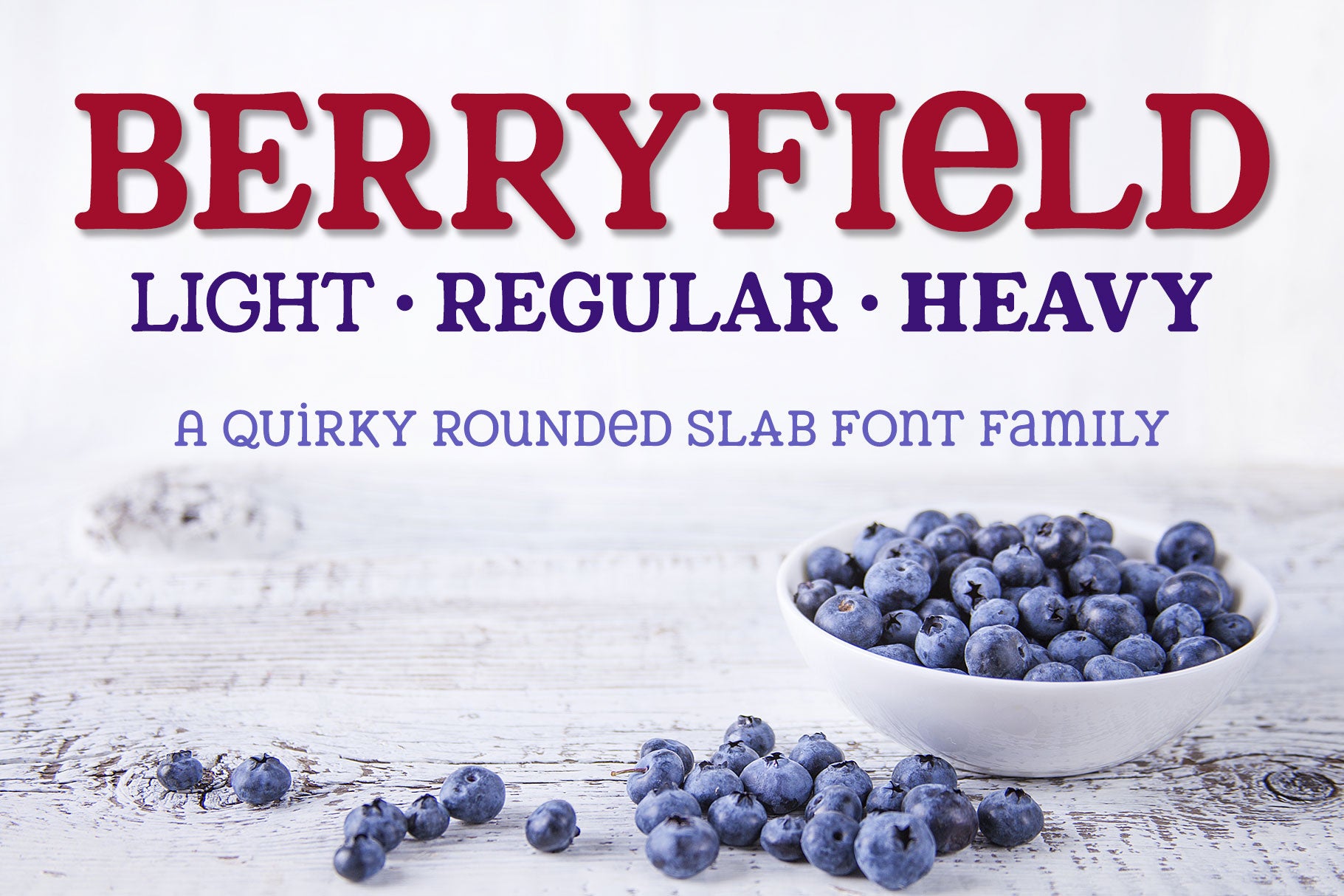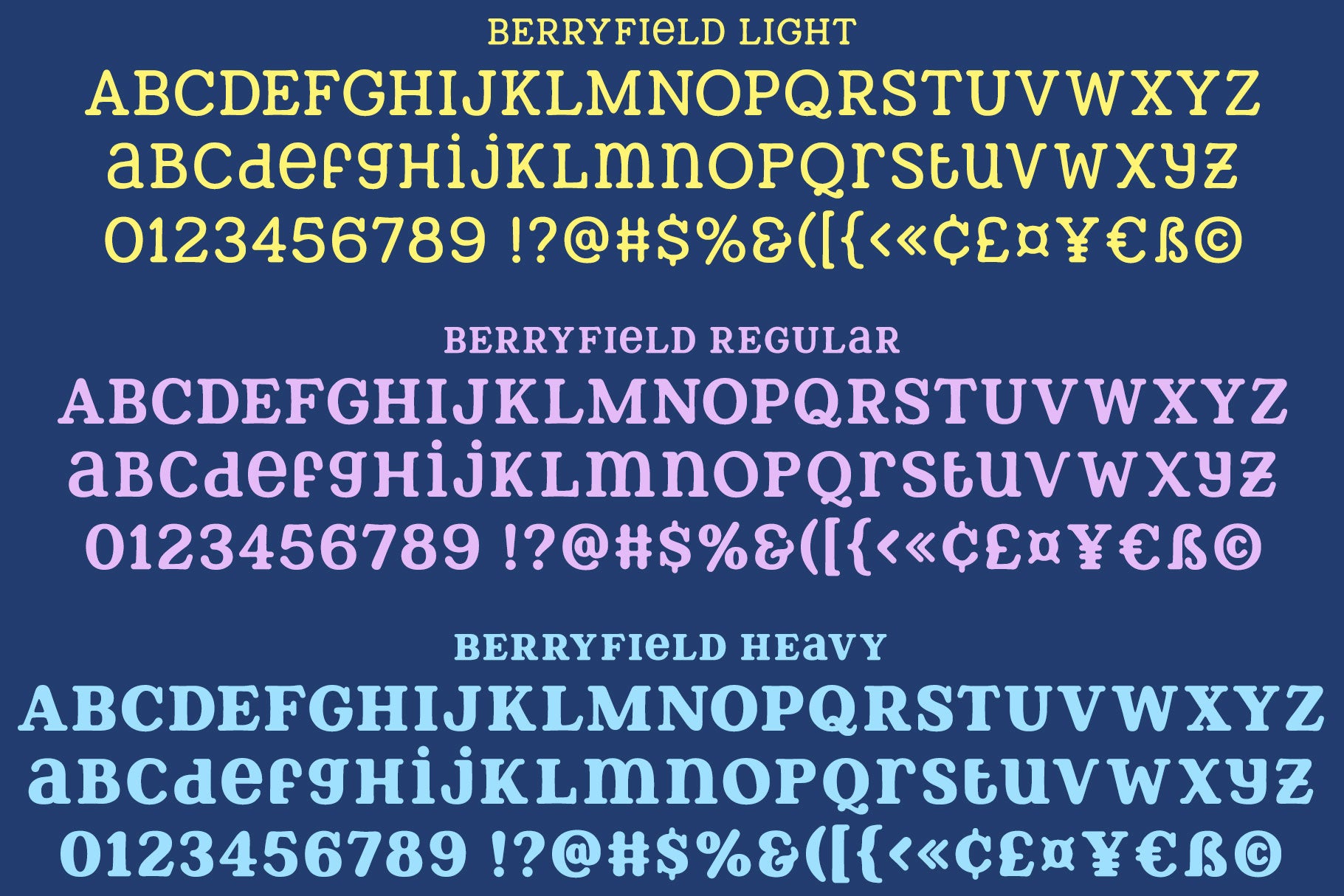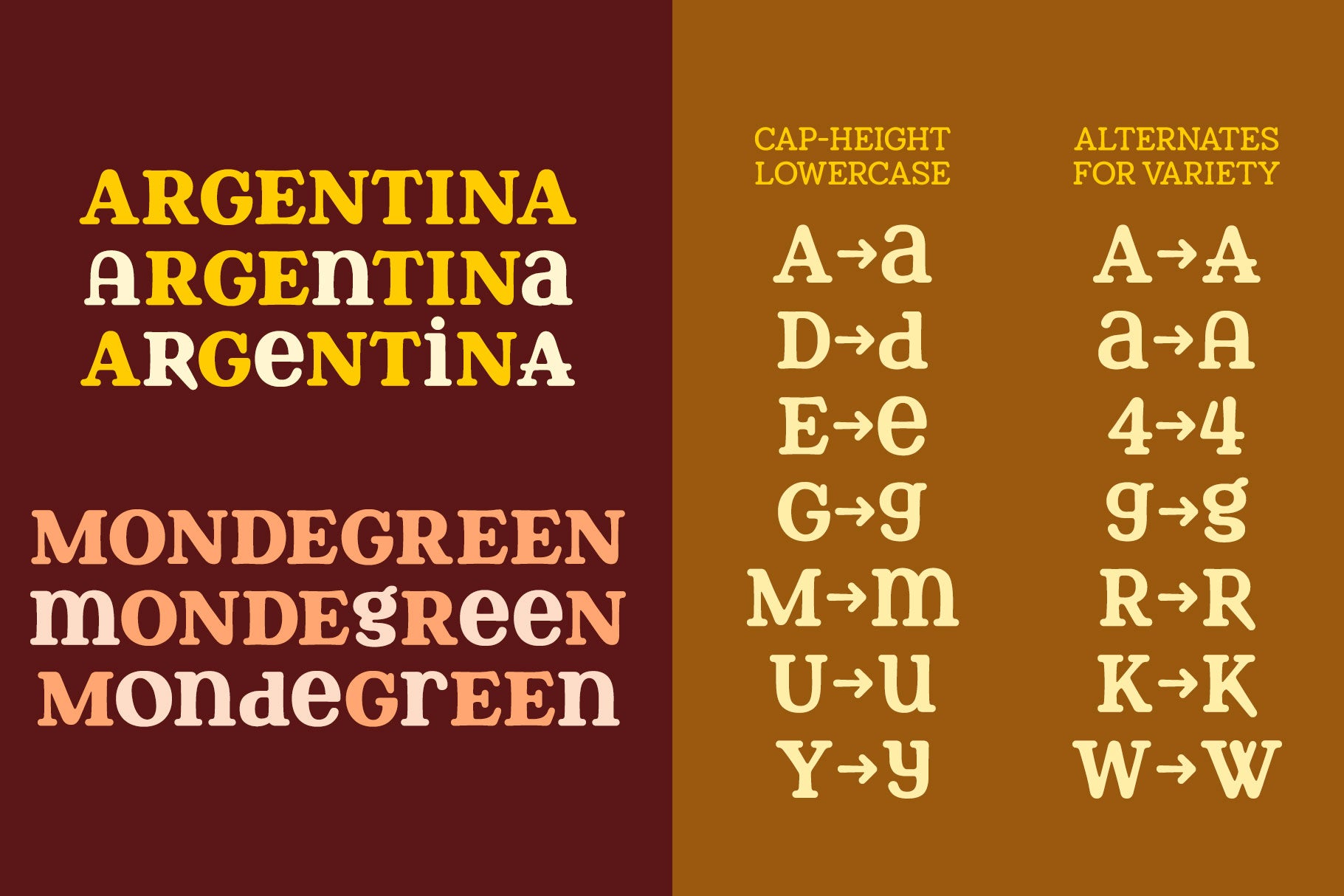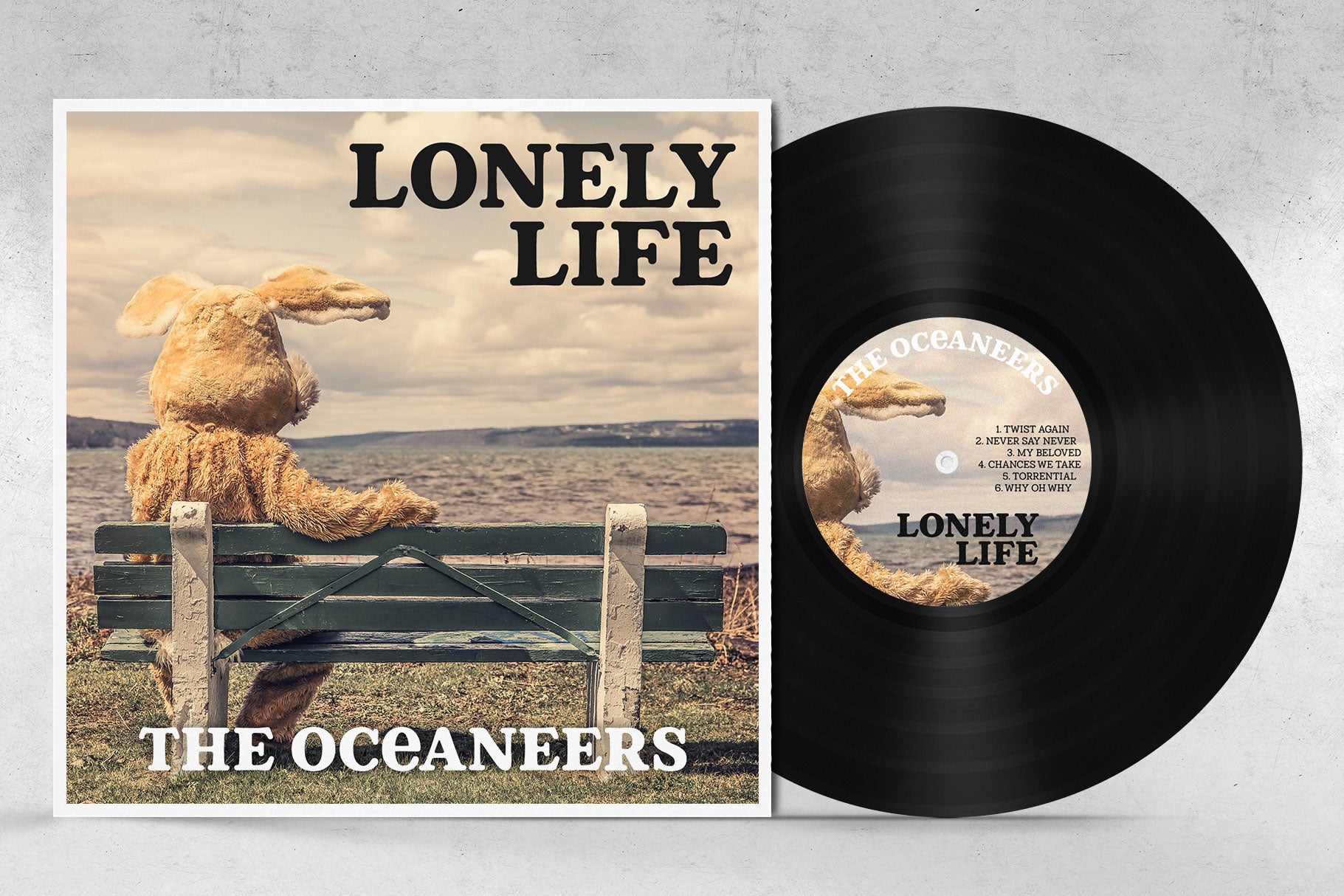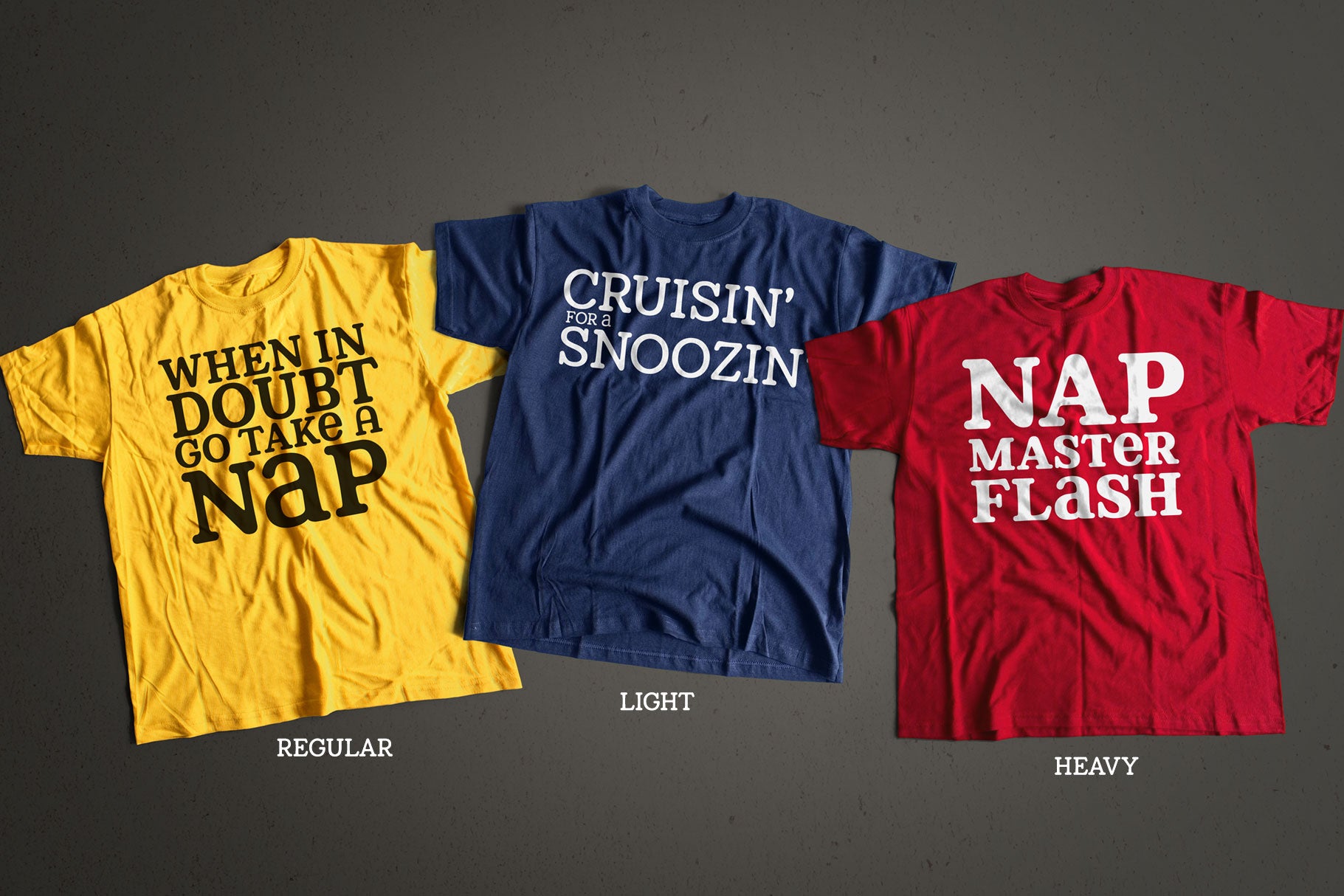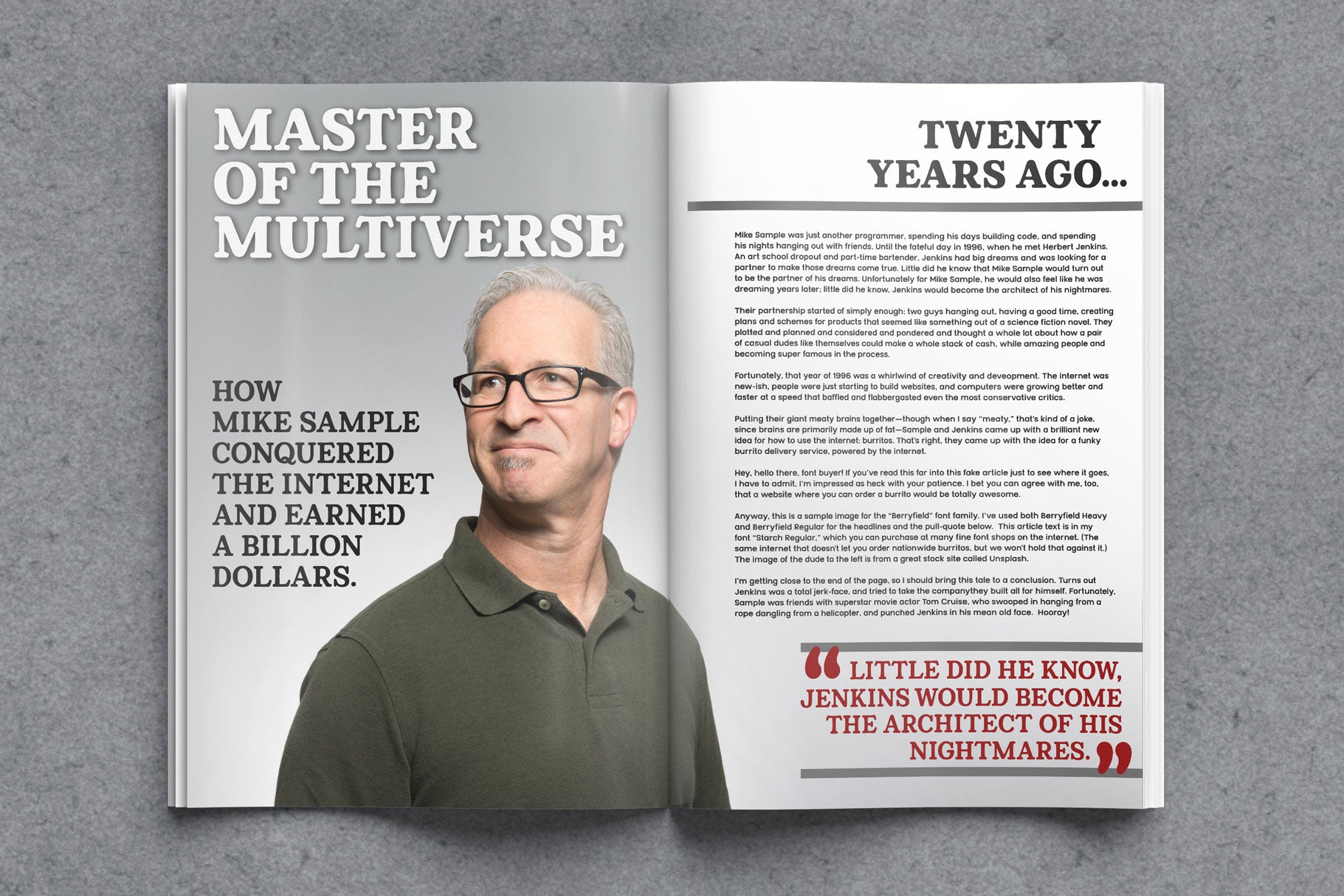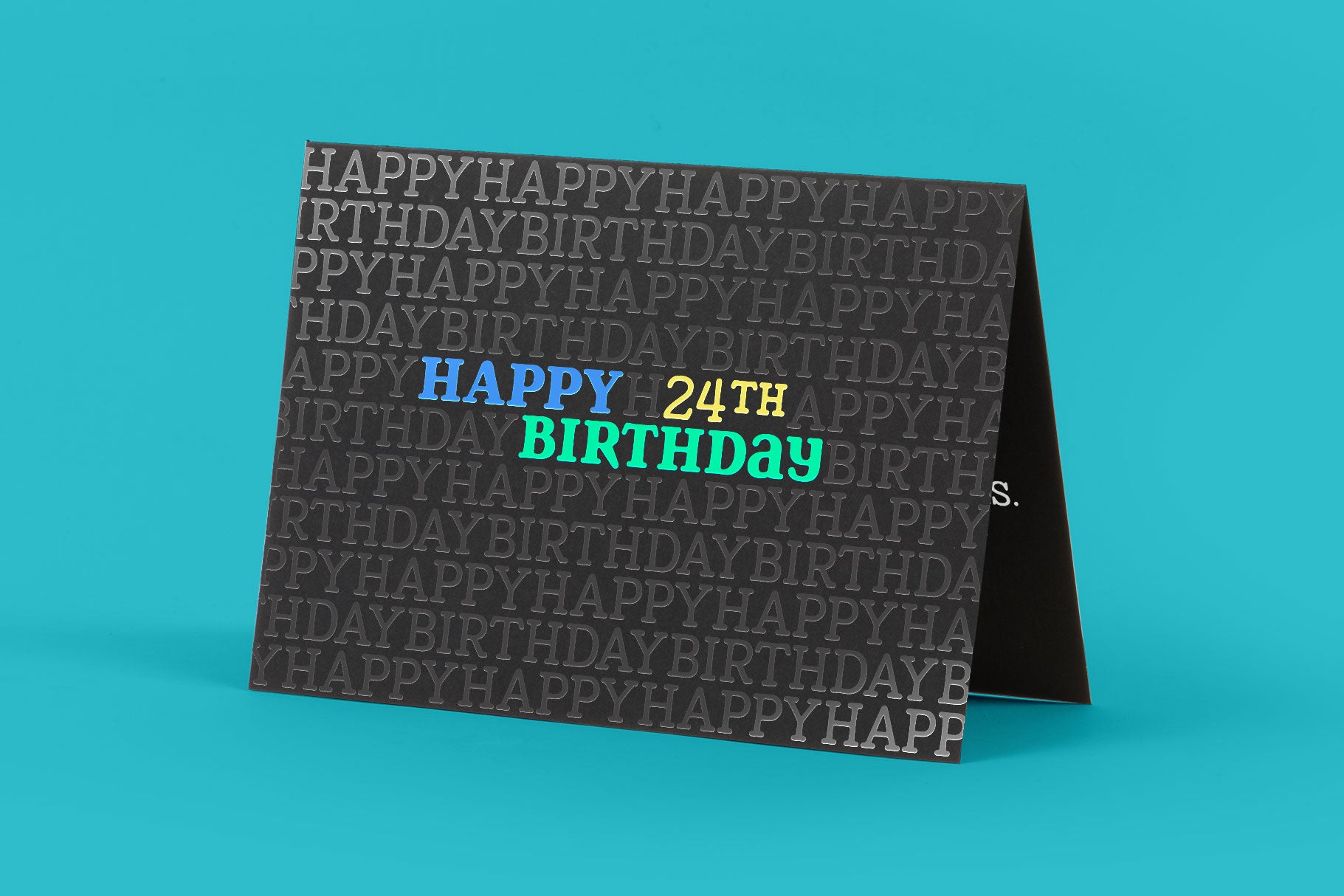
Berryfield started as an experiment: making a font entirely out of geometric shapes. It started with a couple of circles and a couple of rectangles, and was constructed entirely from those parts, and parts made from those parts!
For the uppercase, I took style inspiration from the heavy serif classics like Cooper, Korinna, and Goudy. But when it came time to create the lowercase set, I took a sharp turn and looked to fun unicase fonts like Pupcat and Pharmacy, creating uppercase-height lowercase letters, in addition to uppercase alternates.
When I finished Berryfield Regular, I liked it so much I made a lighter version (almost like a typewriter font), and a heavier version, to give you even more variety!
Each font in the family contains over 520 characters, including over 300 extended Latin characters for language support. There are also a number of alternate letters to choose from, as well as superscript ordinals (ST, ND, RD, and TH), all of which are encoded to the Unicode Private Use Area for easy access no matter what design program you're using.
Berryfield was a ton of fun to make, and I hope you have a ton of fun using it! It's smooth and easy for both print and crafting; the uppercase alone is straightforward enough for a magazine headline, but combining in the lowercase makes it quirky and fun.